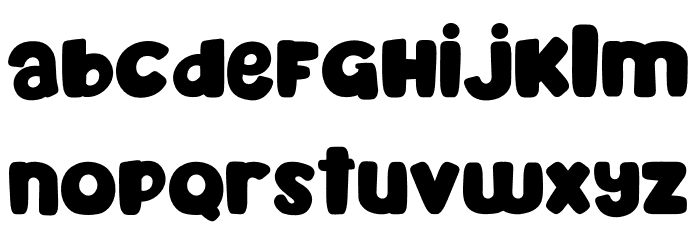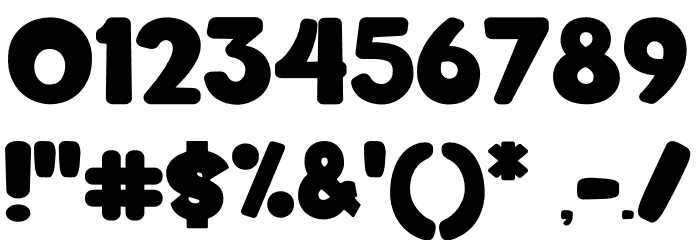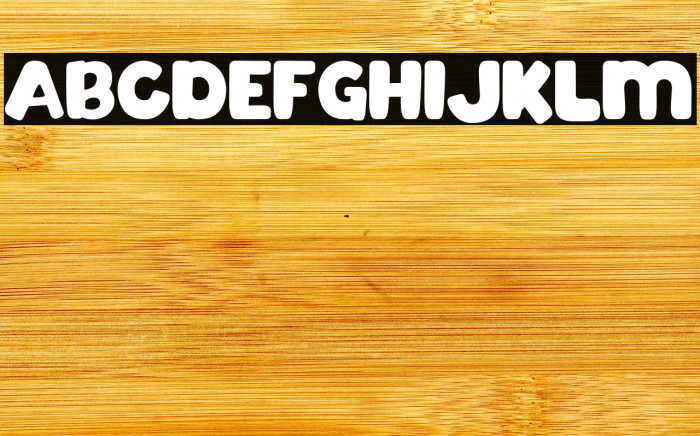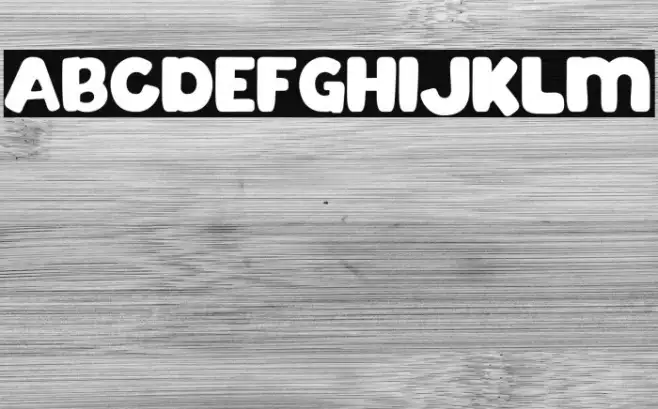
Mahoney Font
This playful and bold font features rounded, thick characters that convey a sense of fun and approachability. The letters are uniformly bold with a consistent stroke width, giving them a strong presence on the page. The rounded edges and smooth curves create a friendly and informal appearance, making it ideal for designs that aim to be inviting and engaging. The font maintains a consistent weight throughout, ensuring readability while adding a touch of whimsy. Its unique style is perfect for projects that require a standout, eye-catching typeface.
A bold, rounded font with a playful and friendly style.
- Proposed Projects: Ideal for children's books, playful branding, event posters, and social media graphics.
- Overall Style: Playful